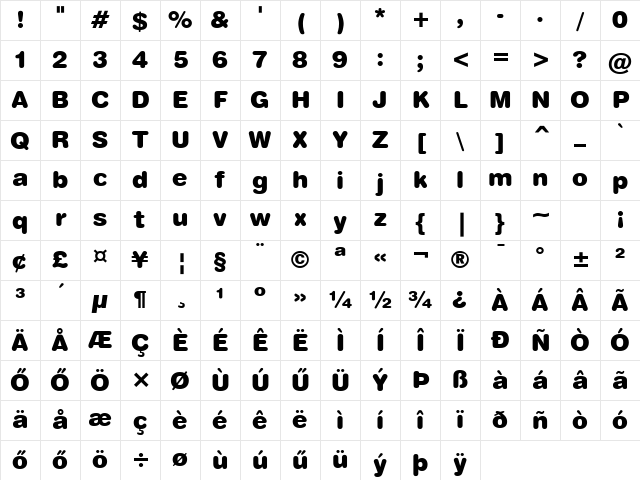
Swiss-721BlackRounded HU softens its letterforms with rounded terminals, giving it an approachable, friendly quality that works well in consumer-facing and digital contexts.
Font Pairing: Pairs well with a rounded or humanist sans for body copy, maintaining the friendly tone without relying on Swiss-721BlackRounded HU to carry extended reading.
Pro Tip: Use Swiss-721BlackRounded HU for UI elements, app interfaces, and anywhere a friendly, approachable tone needs to be maintained without sacrificing clarity.